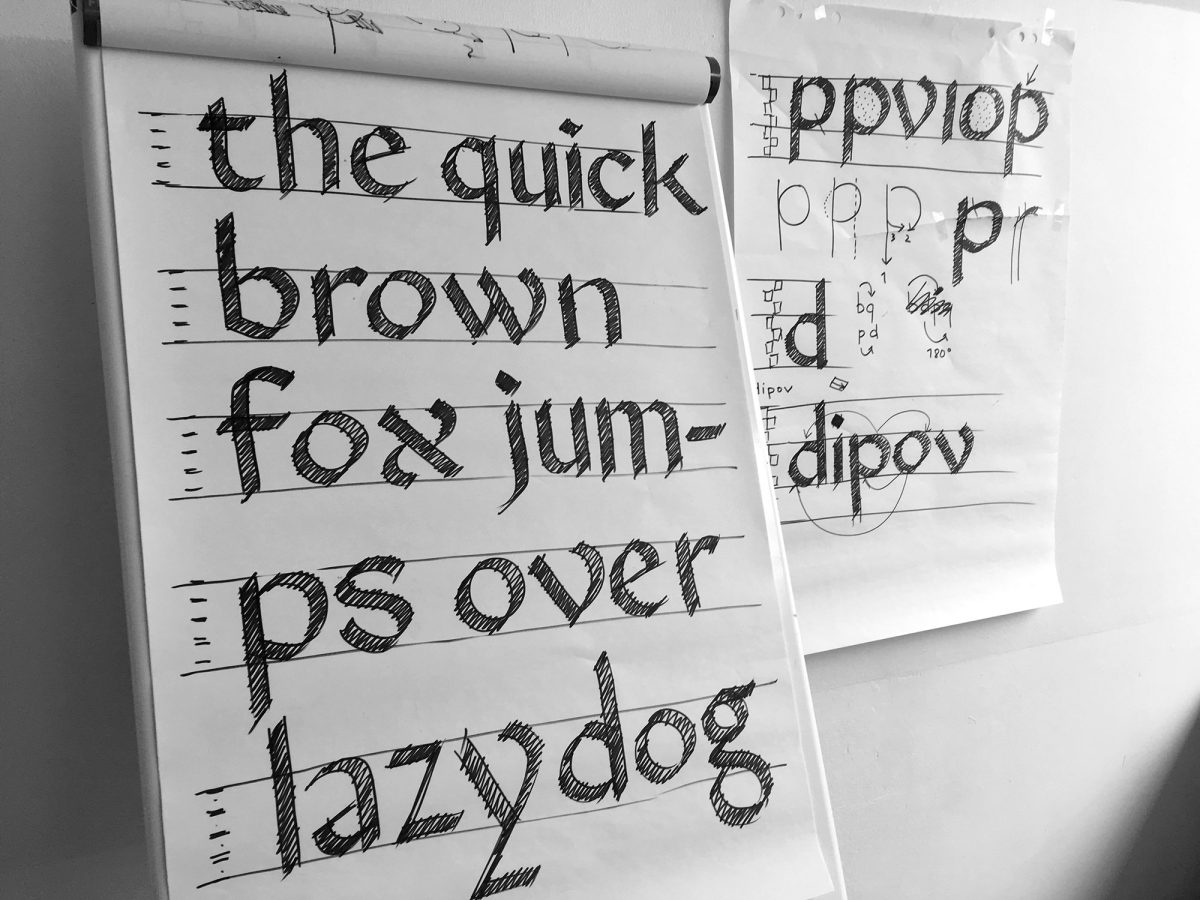
How to teach
How to teach type design is an issue that occupies me since 2008 at the Lorraine school of fine arts Metz. Different methods have been tested over the years, first in a class devoted to graphic design and typography, and then as a specific workshop. Although the starting points may differ, the purpose is common: the design of an alphabet intended for use on a computer, i.e. a font file with capital letters, lowercase letters, some punctuation marks and sometimes figures which that with the help of a keyboard allow the input of whole texts.
A wonderfully effective system, which I am constantly amazed.
Methods, approaches, issues
The method to achieve this is simple: draw a word consisting of a first letter in capital letters followed by lowercase letters. It is a question of defining the proportions, the modulation and the contrast with the help of some distinctive glyphs. This research on the identity of the character integrates reflections on its future context and is enriched by a referential search. It is only once this identity is defined that the student moves on to the digitization and the production of the font. What letters convey, their spirit, is paramount. Production and technical aspects are secondary, but developed.
Among the different starting points, we can distinguish between graphic approaches (seen characters) and typographic (rather read characters). It is the playful, modular approaches and the revivals of existing characters that have quickly given the most satisfactory results. Both guarantee consistency from the start, one using basic geometry, the other using a historical source.
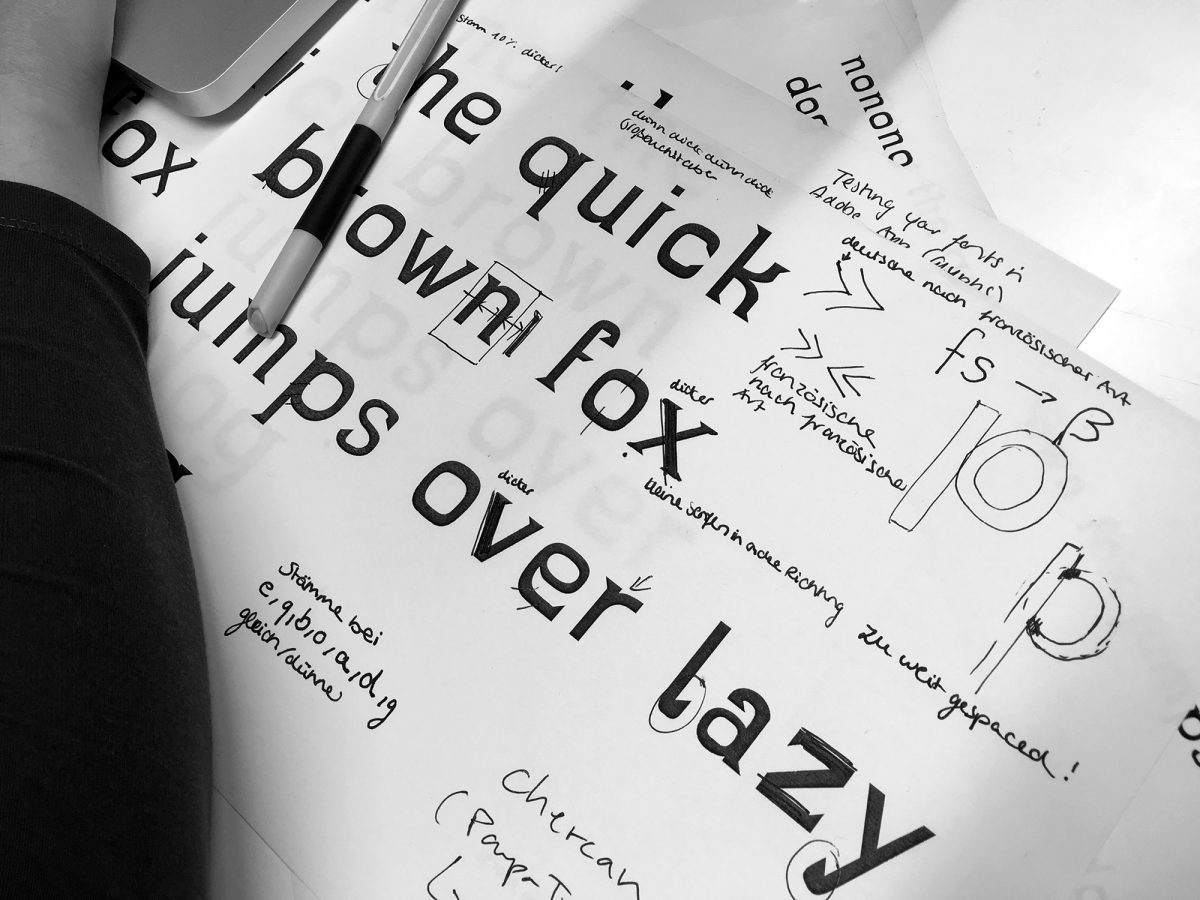
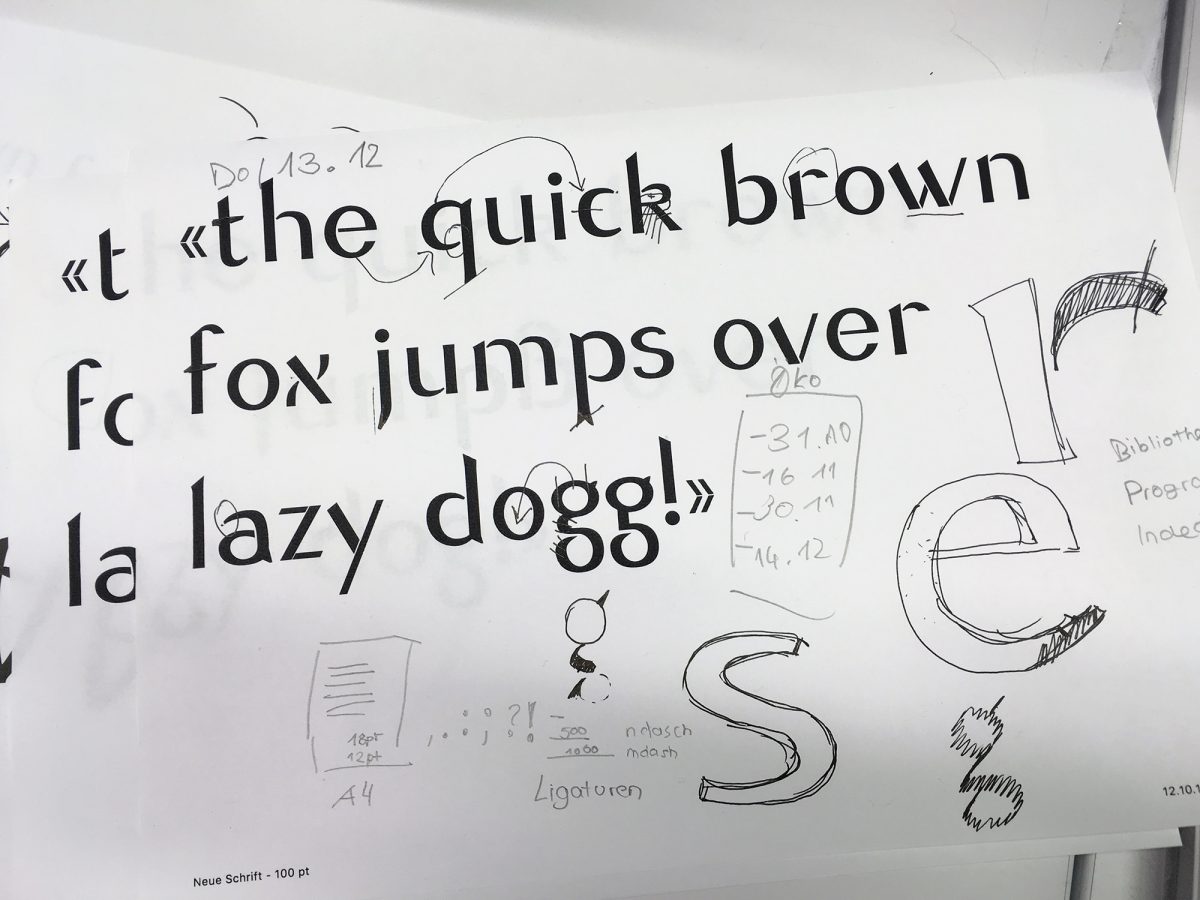
Another, more unstable approach is to take calligraphy as a starting point. It requires much more time, but seems to me richer. In most cases, it is the humanistic hand that is proposed (as Johnston, Tschichold and Noordzij defined it in a simplified form, not far from typographic forms), but models based on a sharp pen or more historical (the Caroline, Uncial or Gothic styles) can also be starting points. The challenge is to emancipate from writing to go to type forms, while ensuring consistency between the letterforms of which calligraphy is a guarantor. This approach seems to me more alive and it can move towards many projects, as far apart as it may seem with for example geometric sanserif styles. I see fundamental distinctions to be made between the understanding of the written letterform (Writing, Calligraphy), drawn (Lettering) and typographic (Type). The challenge is to understand the relationship between writing and typography, and that typography is a ‹machine› which, since its beginnings, juxtaposes rectangular spaces where forms take place, forms that create lines, lines that create texts. And these texts can be embodied by innumerable voices and typographical intonations making the language visible, solid, to use the words of Bringhurst.
A special case
A special case in type design teaching is conducted in Metz with the Messine project 1 which aims to develop a typeface family for the needs of the school. The methods are similar but the project is distinguished by the additional dynamics brought by an external guest, the temporal inscription in the (very) long duration and by a group work. Since 2011, intensive workshops, about one a year, are conducted in partnership with Alejandro Lo Celso. Group work, inter-generational, requires a particular methodology to manage the hundreds of drawings of a growing family of characters, and that must be completed in order to be used in the school (administation, communication, signage, dissertations and student projects…). As part of the first workshop, we have for example created groups style, proportions, modulation, contrast, stroke endings, experimentation, corresponding to different details and key concepts to homogenize on the same drawing.
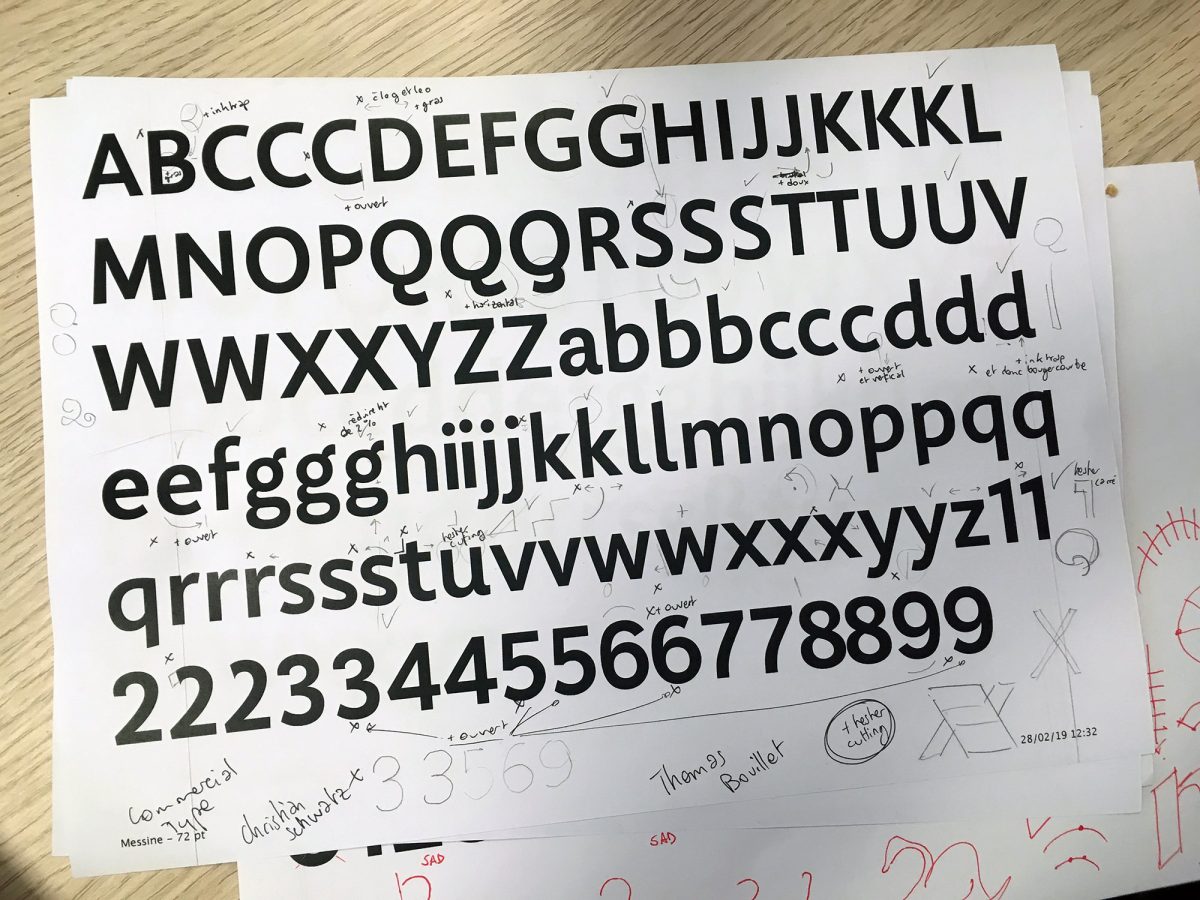
The work was carried out in relation to Salon, an annual publication that lies between a book and a magazine. We wanted to emphasize this in-between by situating us stylistically between two classics, Baskerville, ‘bookish’, and Didot, more connoted to the magazine. Based on a first version for titles (so a display design, and therefore more identity-like), a text version was developed for daily use called Messine Quotidienne. The main difficulty was to stabilize the design of the Titrage version, but without losing the expressive qualities. Then we developed the bold and the italic, which led us to the ‘problem’ of a second voice in typography. What force, what gesture to adopt, what inclination, what relation to the roman? Then we developed versions for larger sizes, currently underway, such as signage or posters, which directed the design towards a sanserif, pictograms, or wood types.
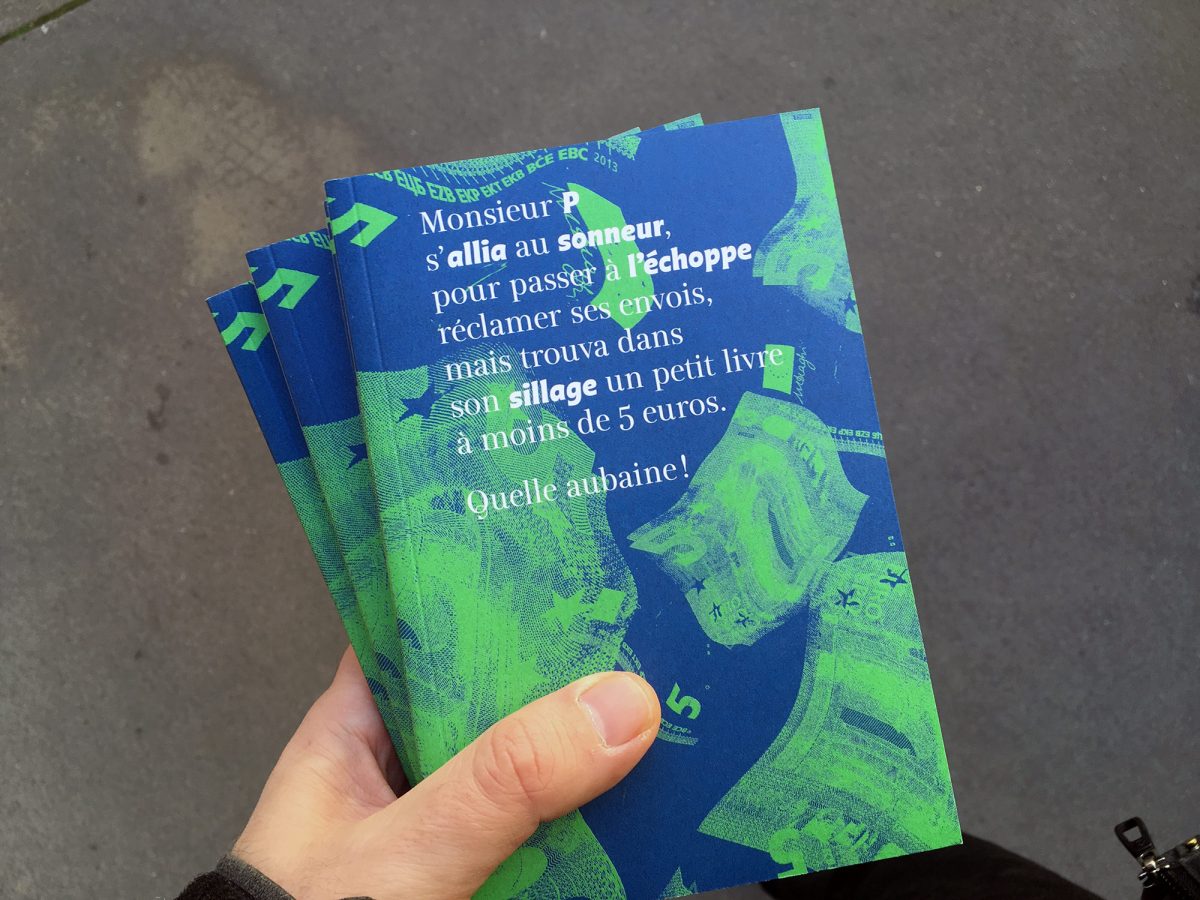
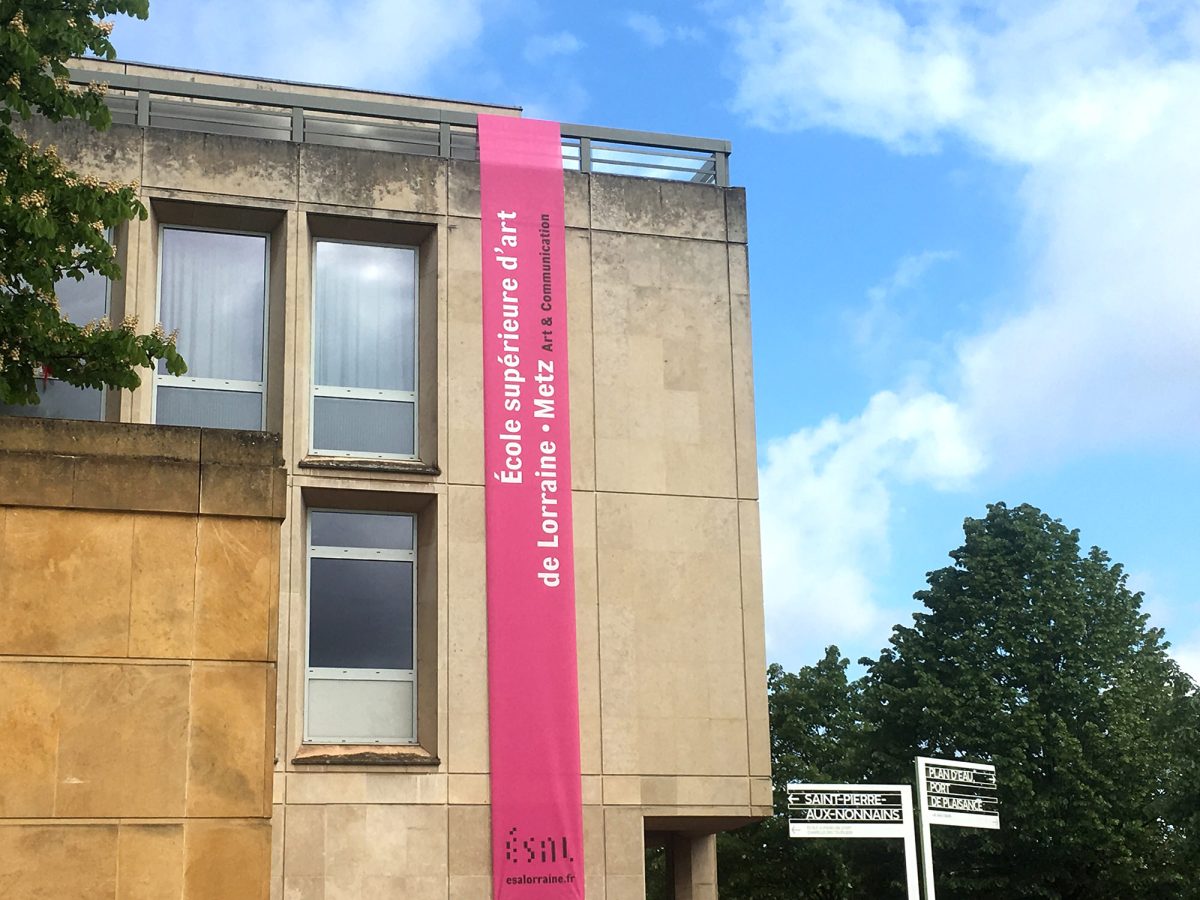
Why teach
Although some results may be welcomed, the question of why can arise. Many are the existing typefaces and many difficulties encountered during their design. First, let’s not forget, an art school is a place of freedom that allows us to search and experiment, freed from the laws of the market. We can see in the learning of type design also a school of the glance, what we learn there is trainer for the eye of every visual artist. But mainly it is to share a motivation that no longer corresponds to the idea that we could have done a few years ago of an obscure and confidential practice. It is no longer uncommon to see a type design workshop in an art school, publications and translations are increasingly available, resources are at hand, online, and digital tools are more in addition varied and accessible. Calligraphy, which I suspected was too archaic a practice, gives not only an excellent understanding to type, but also a real pleasure to make that I see each time in the students.
Nevertheless, type design remains a complex, dense practice.
It requires maturation beyond the scope of a project in an art school. There are many pitfalls such as isolation and compartmentalization — for the student as for the teacher. And, in principle, a font is a tool that is created for use, which means that the student must face two different tasks (type design and typography, even graphic design) and that he must develop two types of special attention, difficult to combine in the same curriculum. One can conclude: the type design is a practice too exclusive.
Yes, it’s not easy. All the more so that to make simple amounts to producing a certain invisibility of the characters that readability requires, but whose degree remains to be defined since at the other end of the spectrum, the expression is just as important. 2 In this fascinating tension, that I see all the interest of a work that never seems to be exhausted, constantly being reformulated. So to conclude, it’s probably because it’s not easy, because it takes time for type design is particularly interesting to study and teach. ‘It’s so simple, that’s why it’s so complicated’, sums up (so well) Paul Rand.
Share, motivations and doubts
The willingness to share education-related issues led to a first international seminar entitled Let’s Type 3 in 2014.
On this basis, the Pangramme project was born two years later 4.
Student creation seems to lack visibility, and only a tiny part is published. This was reason enough for us, immediately confirmed by the many works received. But quickly a question arose: how to exhibit type designs?
- The nice video somebody made years ago in coincidence with the English pangram is a must: https://bit.ly/30kLMOw ↩
- 3. A quick read of their information reveals as favorite books: Tracy, Letters of Credit; Bringhurst, The Elements of Typographic Style; Smeijers, Counterpunch; Unger, While you are reading; Hochuli, Detail in Typography; Noordzij, The Stroke; Kinross, Modern Typography. For designers by priority: Bram De Does, Roger Excoffon, Adrian Frutiger, Unger Gerard, Matthew Carter, Zusana Licko. ↩